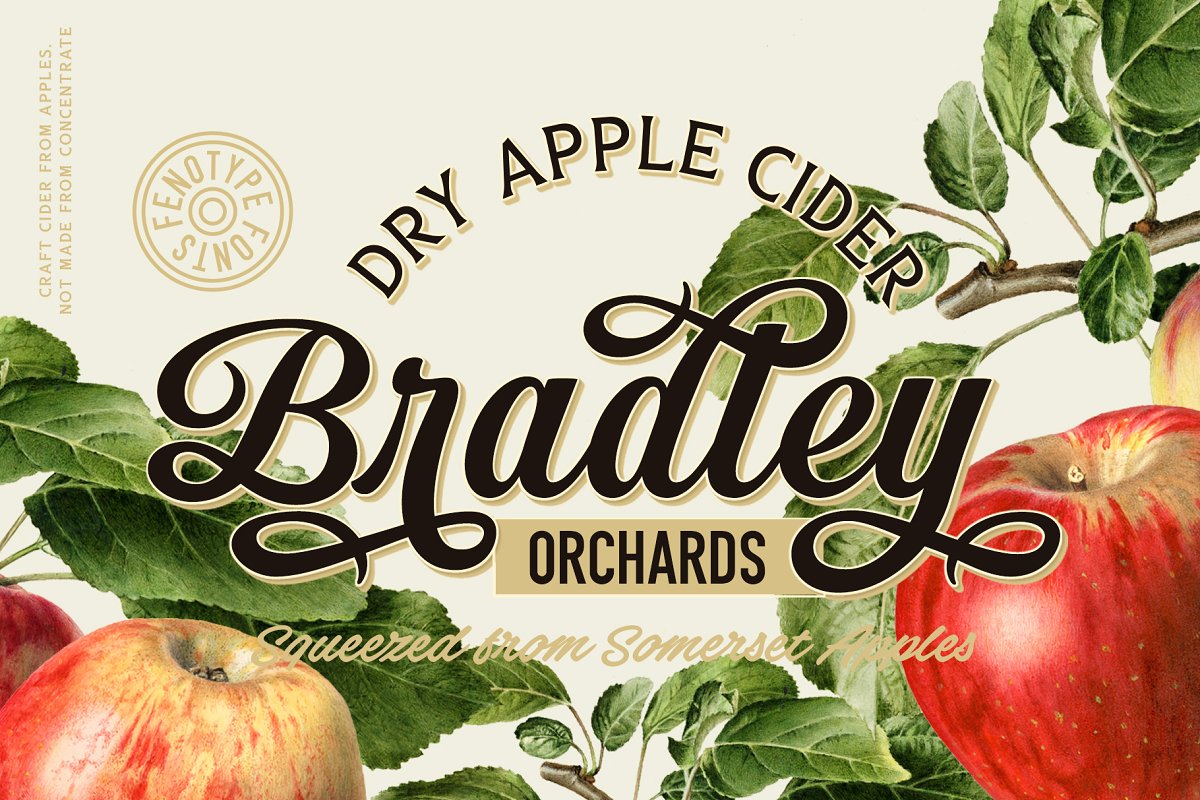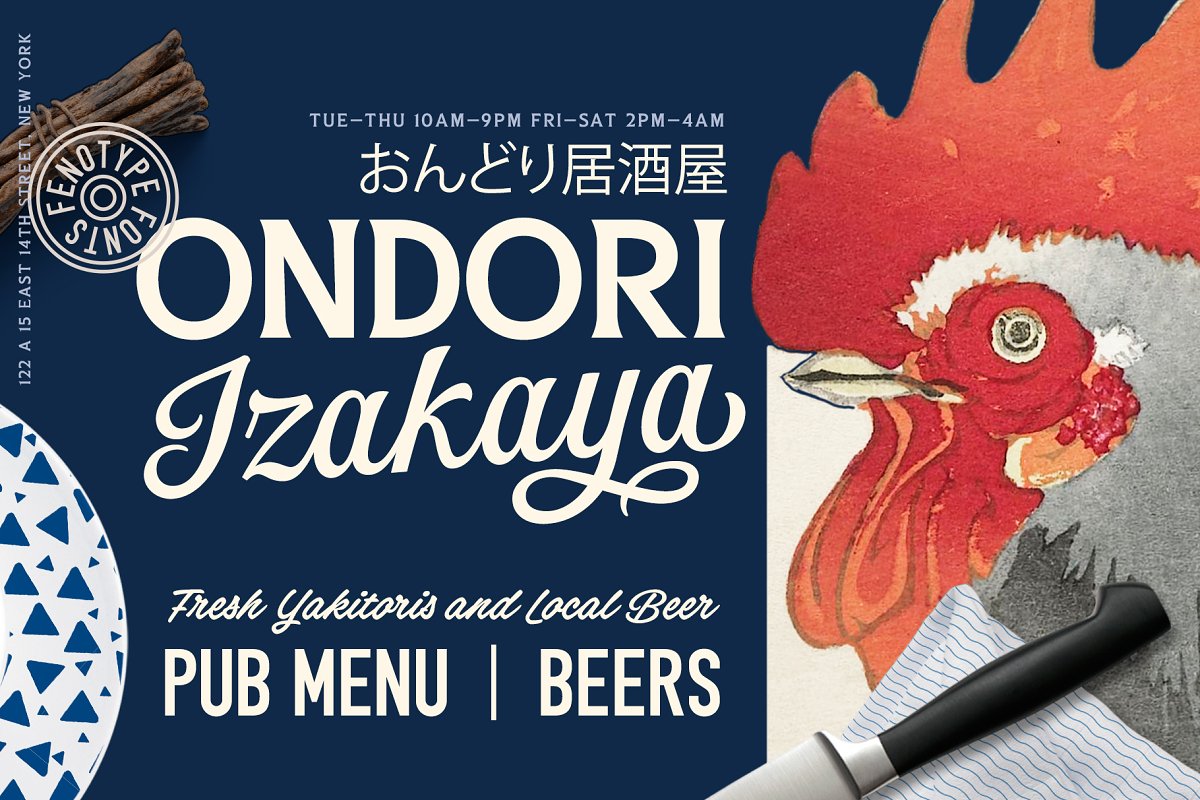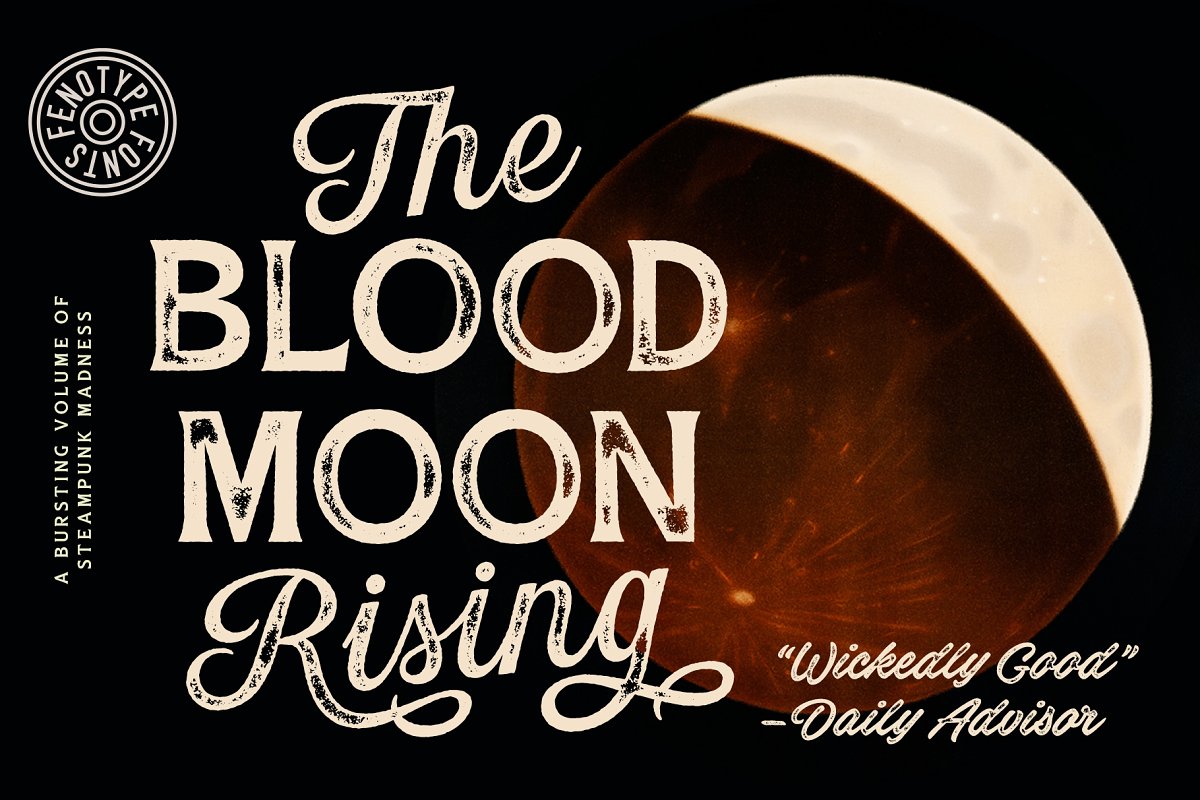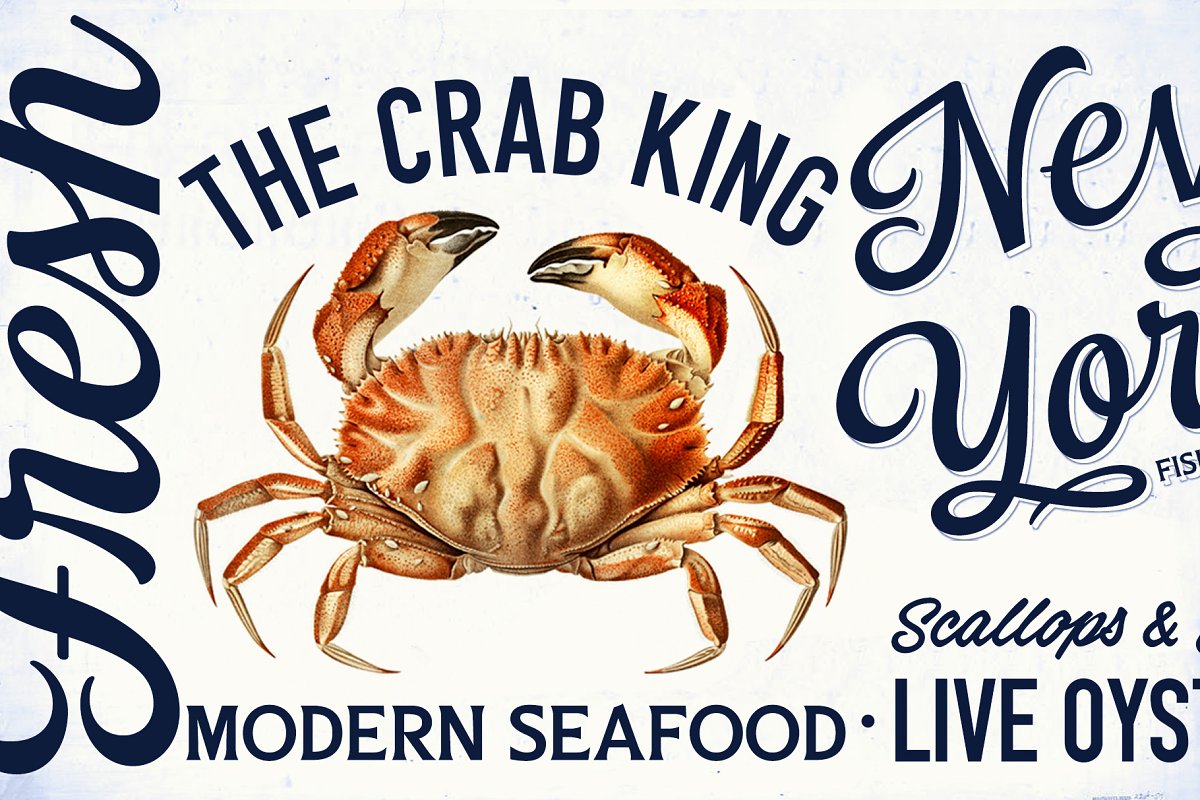
About the Gambler Script
Gambler Script is part of the Gambler Type Collection:https://creativemarket, com/Fenotype/5571839-Gambler-Type-CollectionGambler Script is a smooth contrasted script that comes in two weights and it is packed with plenty of OpenType features: Standard Ligatures and Contextual Alternates are automatically on and they help to keep the flow and connections smooth
From Stylistic Alternates you’ll find characters with pointed endings and some other small variations, For extra flair try Swash or Titling Alternates, Gambler Script is PUA encoded so you can access the extra characters in most graphic design softwares
Gambler Script is an effective typeface for creating identities for branding, posters, book covers, headlines, logotypes, prints on garments, restaurant menus, beer labels and so on, both offline and online